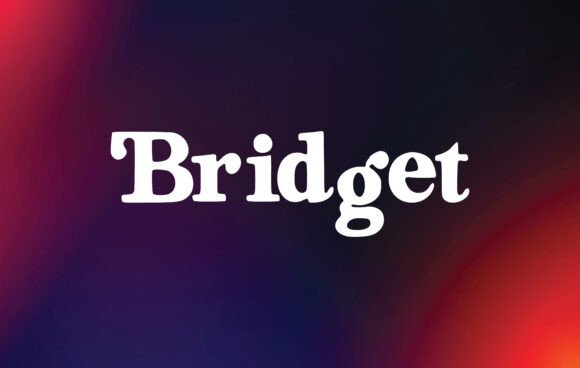
The Designer’s Delight: Unlocking the Potential of Bridget Font
I’ll never forget the time I was working on a branding project for a trendy new cafe. My client was adamant that they wanted a logo that was both elegant and playful, but I was struggling to find the perfect font to capture that vibe. That was until I stumbled upon Bridget Font. 💡
It was love at first sight! The beautiful, flowing lines and curves of Bridget Font immediately caught my attention. I knew right then and there that it was the perfect fit for my client’s project. And, as it turned out, it was the perfect fit for many of my future projects as well. In this article, I’ll share with you why Bridget Font has become a staple in my design toolkit and how you can make the most of it in your own creative endeavors.
- ✅ Beautiful, elegant lines and curves that add a touch of sophistication to any design
- ✅ Highly versatile and works well for a wide range of design applications, from logos and branding to quotes and social media graphics
- ✅ Easy to read and understand, even at smaller font sizes
- ✅ Unique and distinctive, making it perfect for designers who want to stand out from the crowd
- ⚠️ Some users may find the font a bit too ornate or decorative for certain design applications
- ⚠️ Limited availability of certain OpenType features and glyphs, which may limit its use in certain design contexts
The Story Behind Bridget Font
Bridget Font was designed by a team of talented typographers who wanted to create a font that was both elegant and versatile. Inspired by classic calligraphy and modern digital design, Bridget Font was born. The font’s creators wanted to create a font that would be perfect for designers who want to add a touch of sophistication and style to their designs.
Q: What is Bridget Font?
A: Bridget Font is a beautiful and elegant font that’s perfect for designs that require a touch of sophistication and style.
Q: What design applications is Bridget Font suitable for?
A: Bridget Font is highly versatile and works well for a wide range of design applications, from logos and branding to quotes and social media graphics.
Q: Is Bridget Font easy to read?
A: Yes, Bridget Font is easy to read and understand, even at smaller font sizes. However, it’s always a good idea to test the font in your design to ensure that it works well for your specific project.